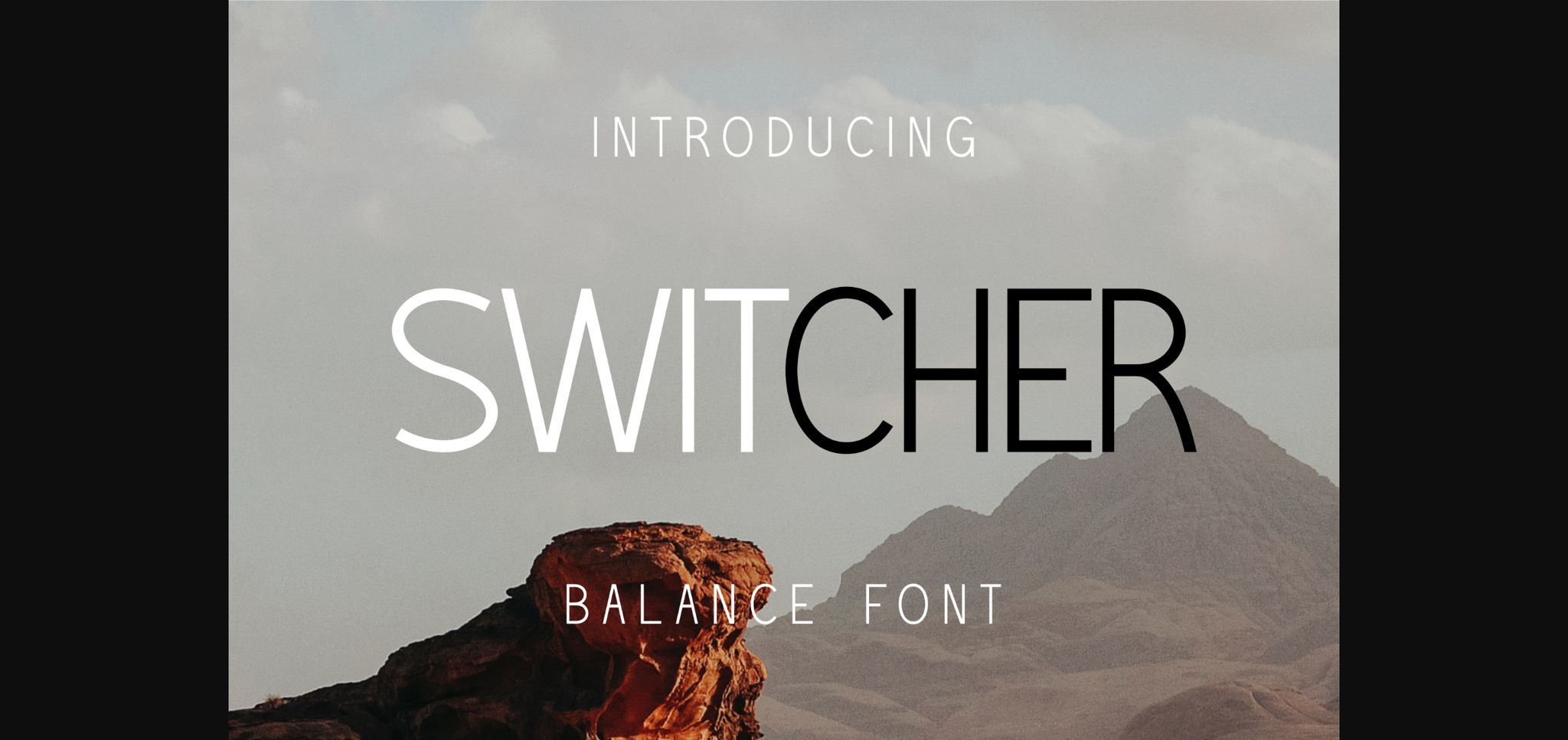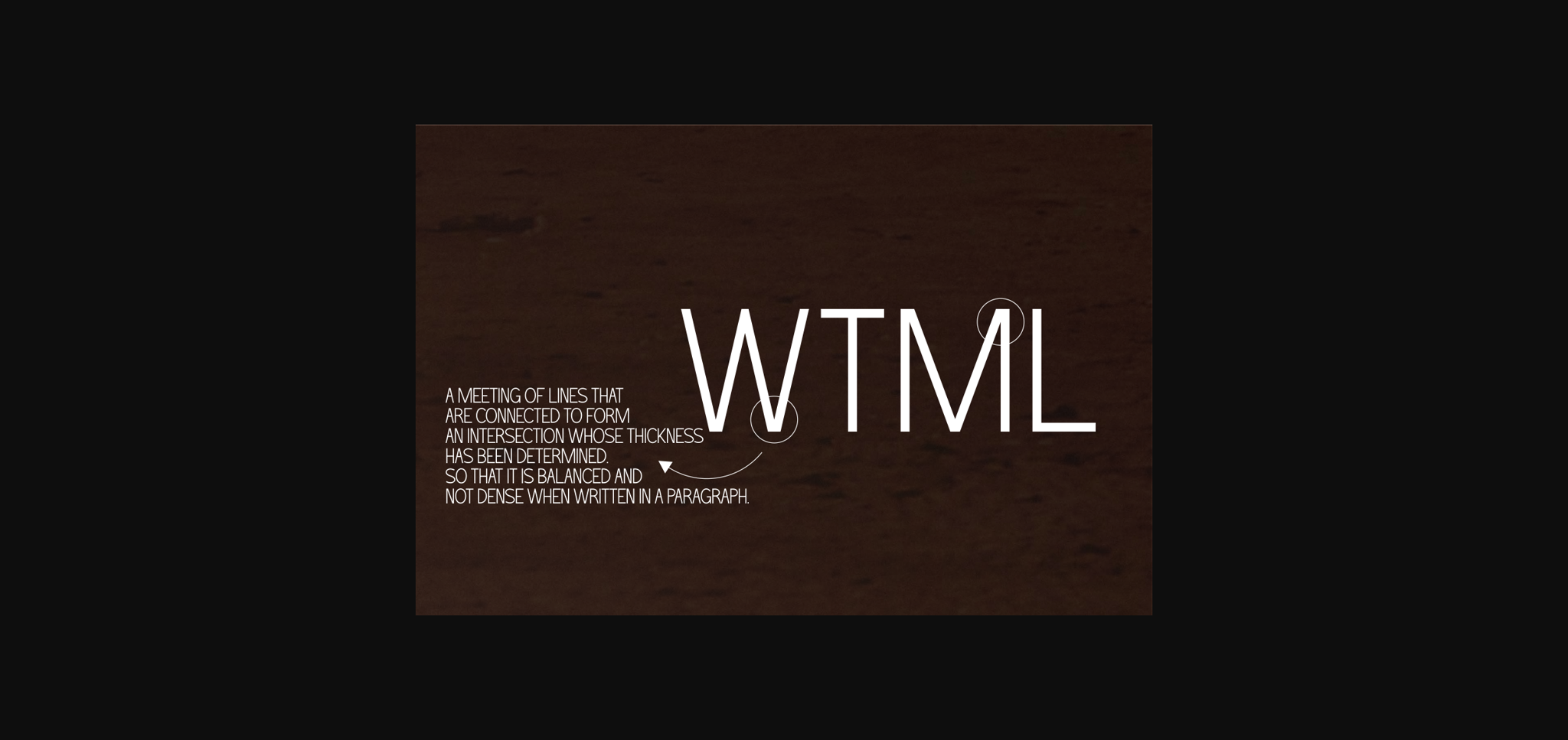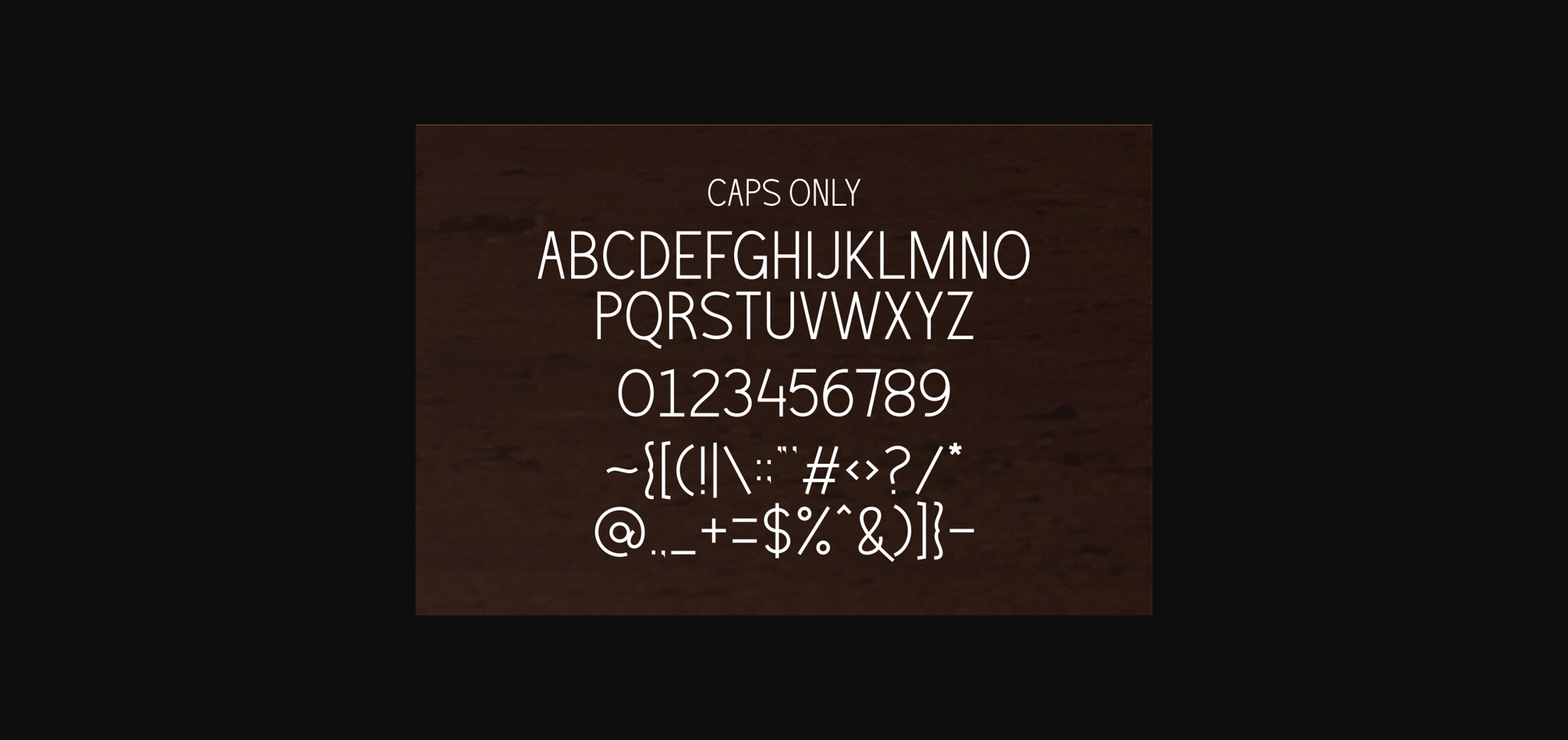
About Switcher Font
Switcher is an elegant and modern sans serif font. This minimalist and clean vibe can easily apply to your favorite designs such as book covers, magazines, social media posts, invitations, and so much more!